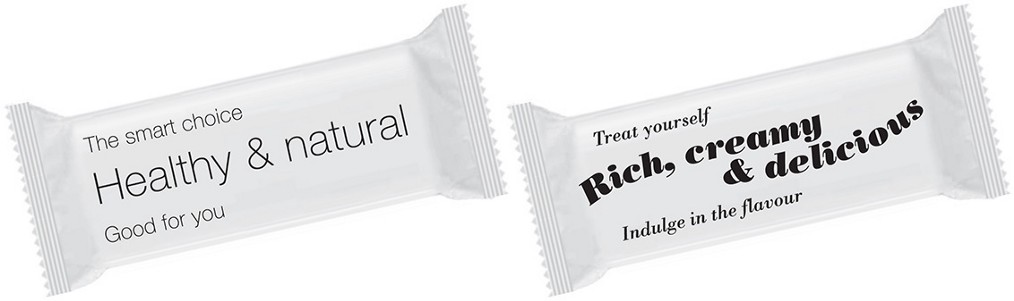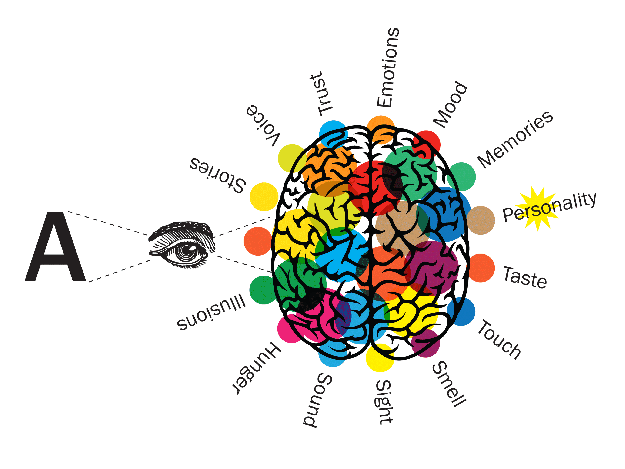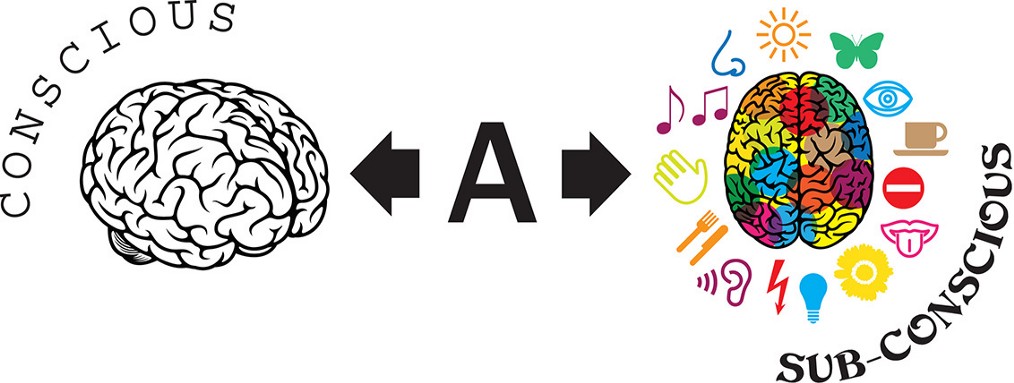
Graphic designers and type consumers interact with typography in very different ways. Each is just as much of an expert in their own field of experience, but one interacts consciously and the other subconsciously.
Graphic designers pay conscious attention to type and make decisions based on knowledge, carefully considering which typefaces to use and how to set them. By contrast, the experience of the type consumer is unconscious and automatic; it is mingled with instinctive associations, learned references, and stimuli from all of the senses. It is a visceral and multi sensory experience that generally takes place beneath the radar of consciousness, and that taps into the complex understanding of visual codes that we’ve been learning all of our lives. We are all type consumers when we are off duty.
We don’t just read with our eyes. The most important part of the process takes place in the brain, and because this happens automatically it creates the illusion that reading is a simple and effortless activity. In fact, the process builds on complex cognitive, linguistic, and social skills that have been developed from an early age. The task is performed by our non-conscious brain, which gathers a great deal of information from the type, independently of what the words are spelling out. Some typefaces take a short cut directly to the non-conscious brain, where they are processed like pictures. The most aesthetically pleasing solution might not be the most effective one, and being aware of this makes us better designers.
Rational decision-making involves cognitive processing as we think through a decision logically; this uses more energy, whereas instinctive decisions are processed instantly on a non-conscious level, in an area of the brain controlled by memory and emotions. This is where it is estimated that at least 85% of our decisions are made, so appealing to the instincts can make a decision feel easier to make.
In my opinion, if we want to encourage healthier eating, why not use typography and language to prompt customers to buy on impulse and by desire, instead of presenting it as a conscious and rational choice?
The below both contain the same snack bar, which would you WANT to eat?